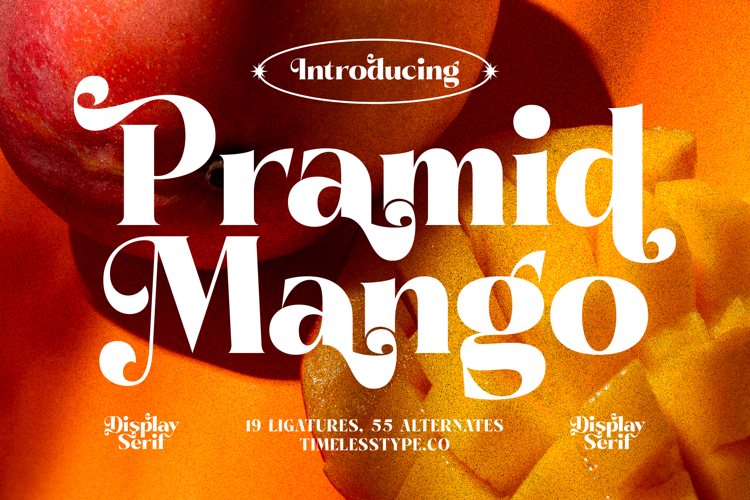
Pramid Mango - Display Serif Font
Pramid Mango
Pramid Mango Italic
Pramid Mango is a serif display font that blends bold elegance with playful decorative flair. With its thick strokes, curvy terminals, and expressive swashes, this typeface delivers a striking personality that feels both modern and retro. Designed with 19 ligatures and 55 alternates, Pramid Mango provides endless flexibility for designers to create unique, dynamic, and unforgettable compositions. Its bold structure paired with decorative details makes it the perfect font for projects that want to be both stylish and attention-grabbing.